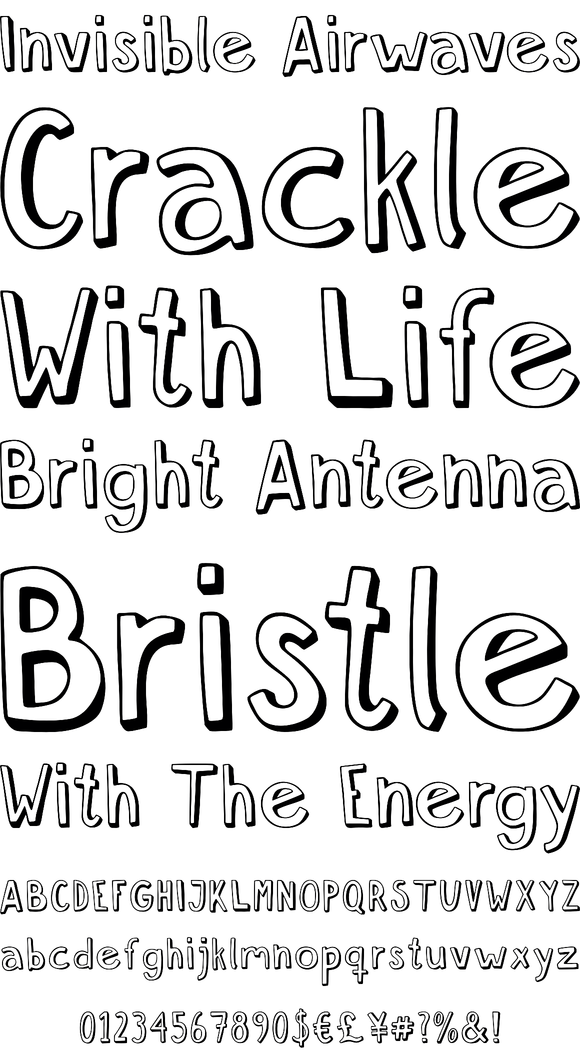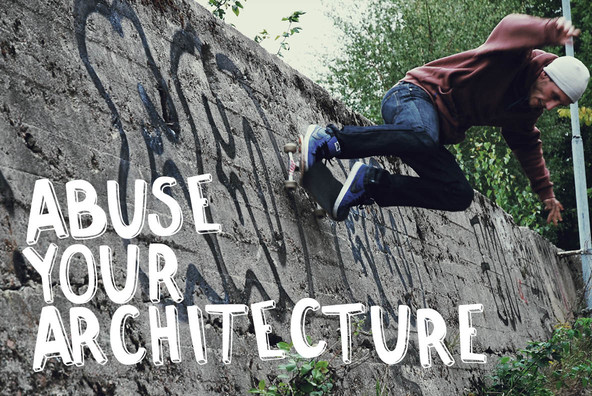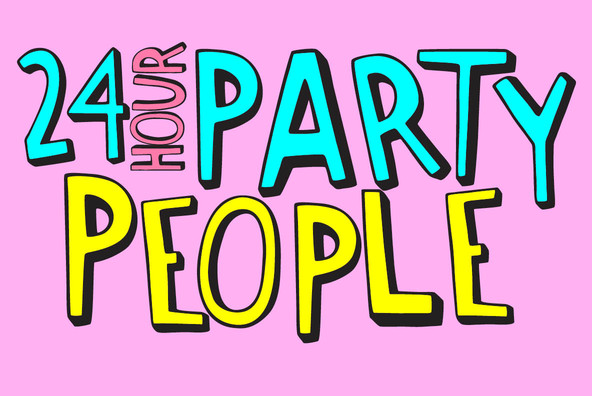
Push Ups
Is it ironic? Maybe. Is it a propaganda font? Nope. Is it witty? Yes. Is it suitable for selling ice cream? Very much so.Push Ups is a handwritten 3D-font. It’s available in three different styles, combined they will give you almost endless possibilities.